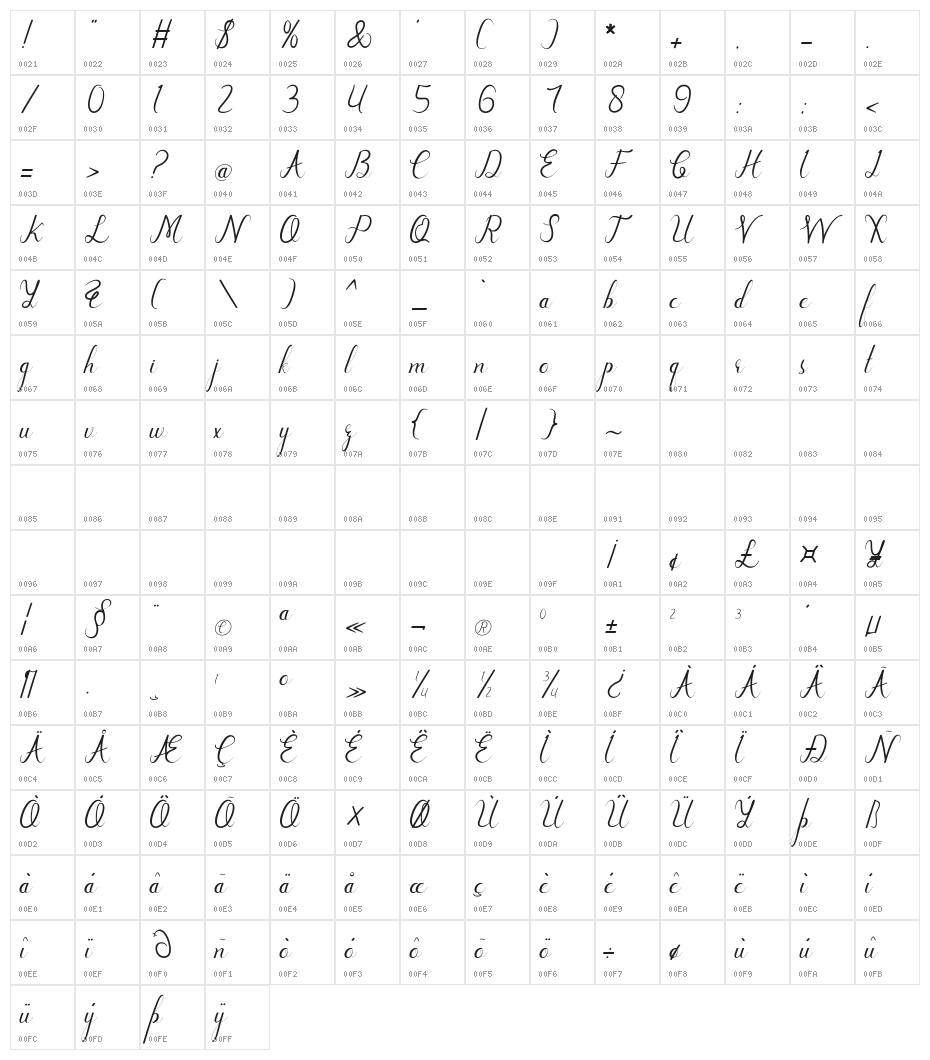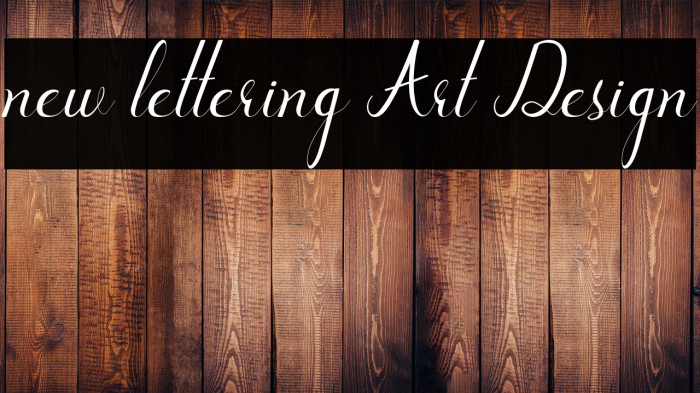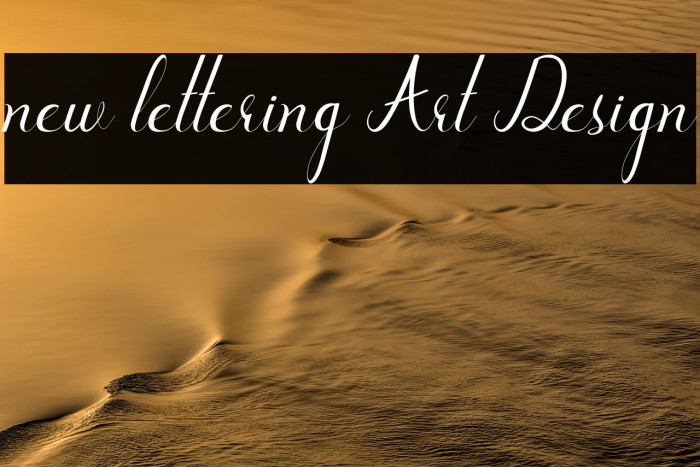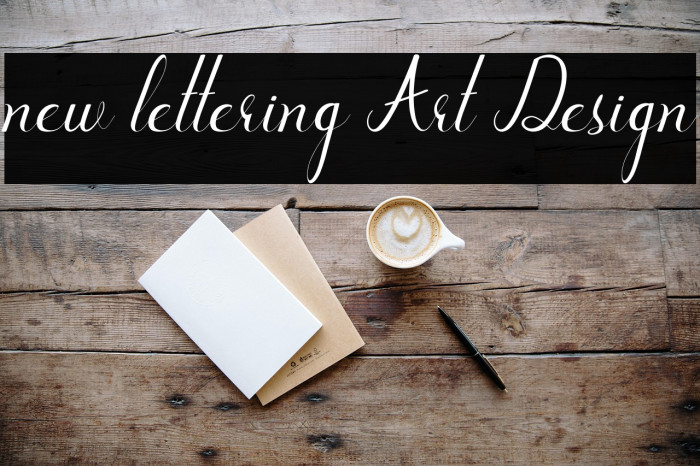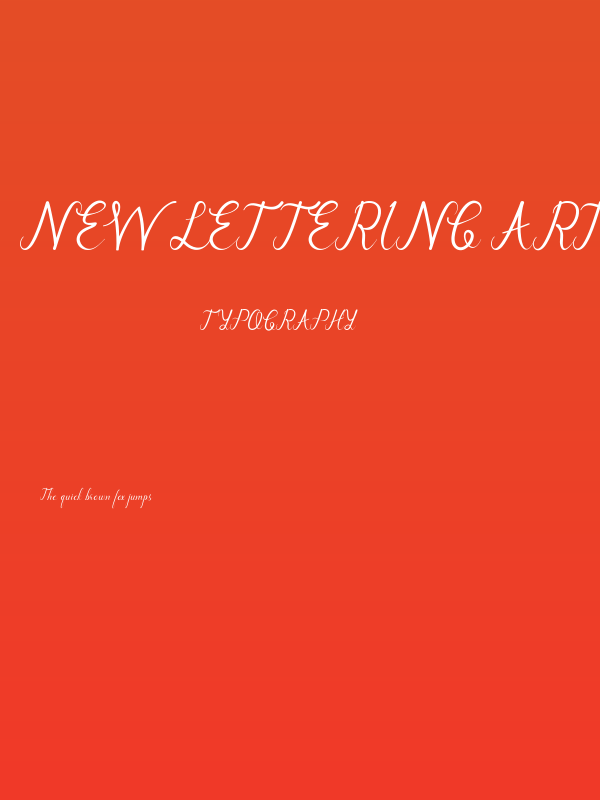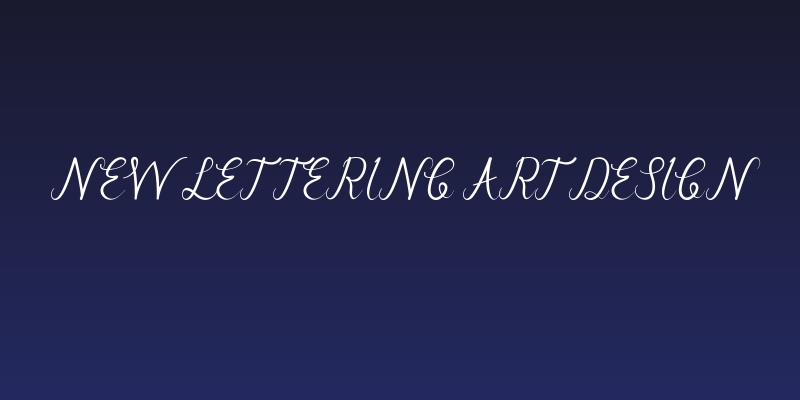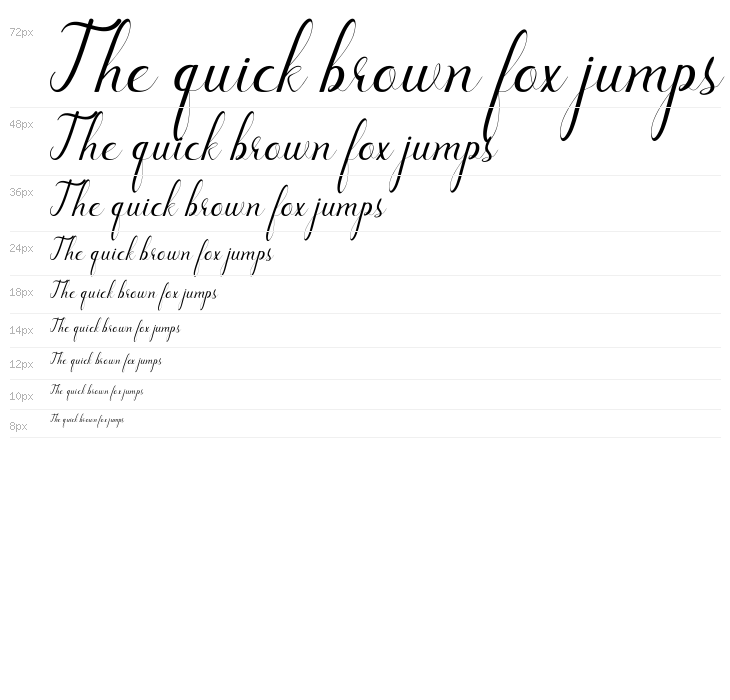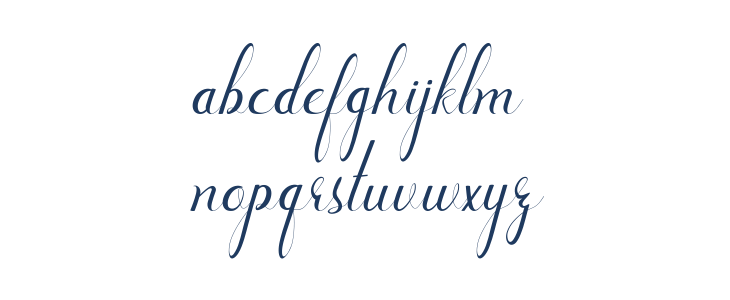
new lettering Art Design Font
new lettering Art Design Description
This elegant script font features flowing, interconnected letters that evoke a sense of sophistication and grace. The uppercase letters are tall and slender, with gentle curves and loops that add a touch of whimsy. The lowercase letters maintain a consistent style, with elongated ascenders and descenders that enhance the font's fluidity. Numbers and special characters are designed to match the overall aesthetic, ensuring a cohesive look across all text elements. This font is ideal for projects that require a personal, handwritten touch, such as invitations, greeting cards, and branding materials.
Overall StyleElegant, Sophisticated
Use CaseInvitations, Branding, Artistic Projects
Proposed ProjectsIdeal for wedding invitations, elegant branding, personal stationery, and artistic projects.